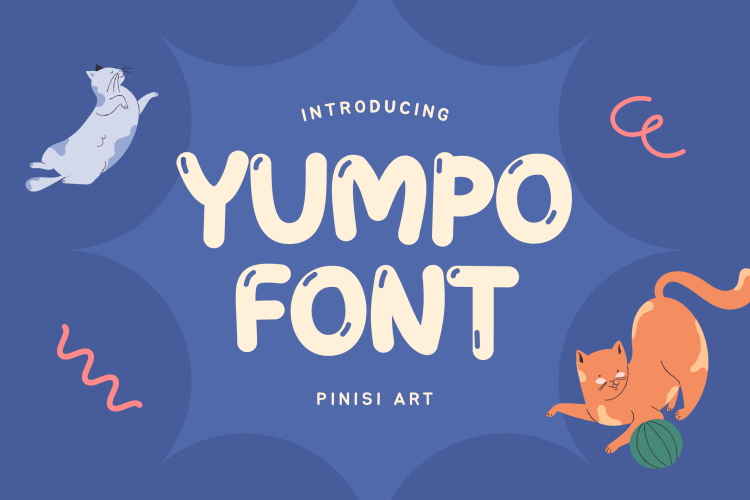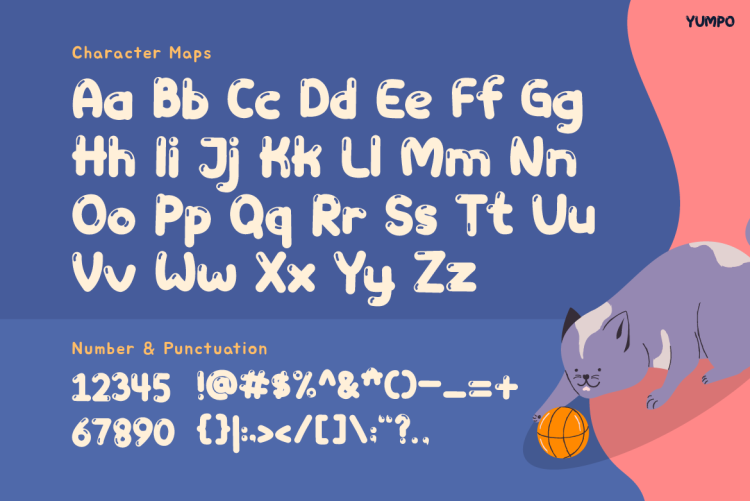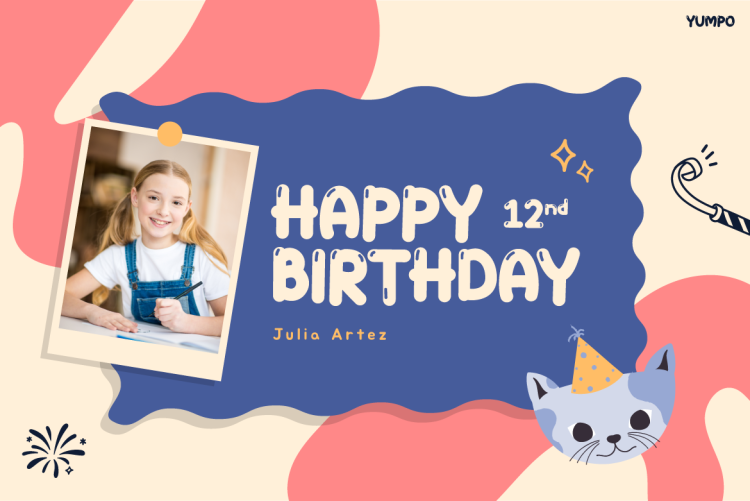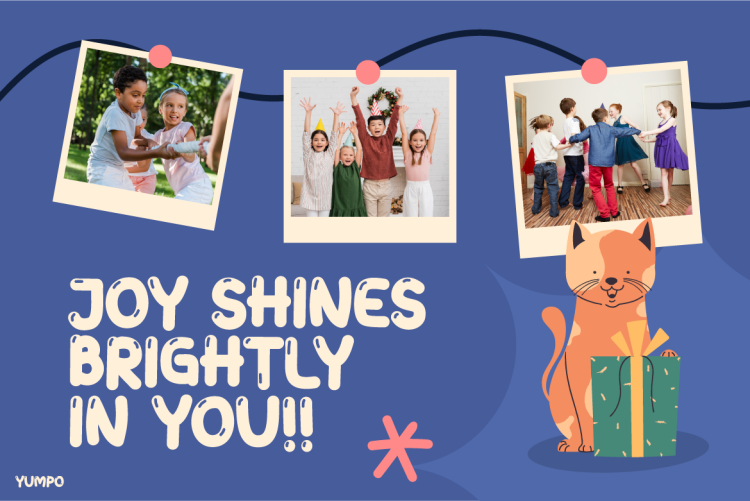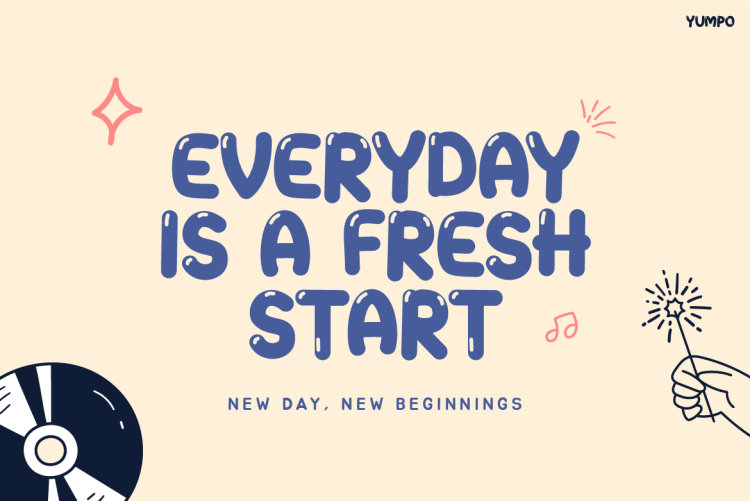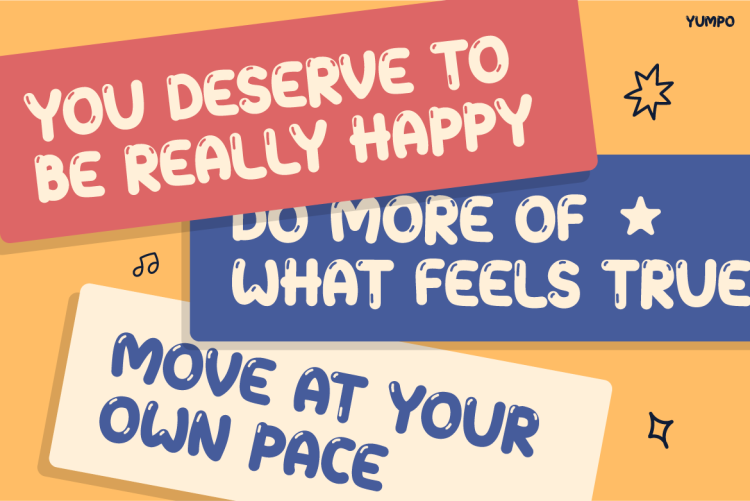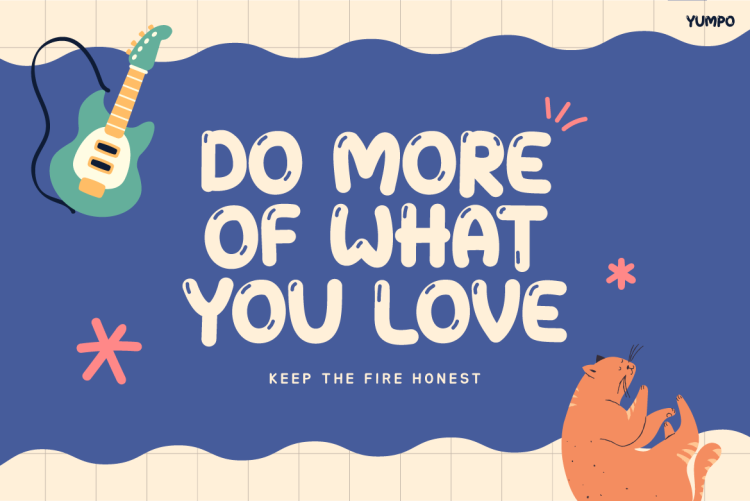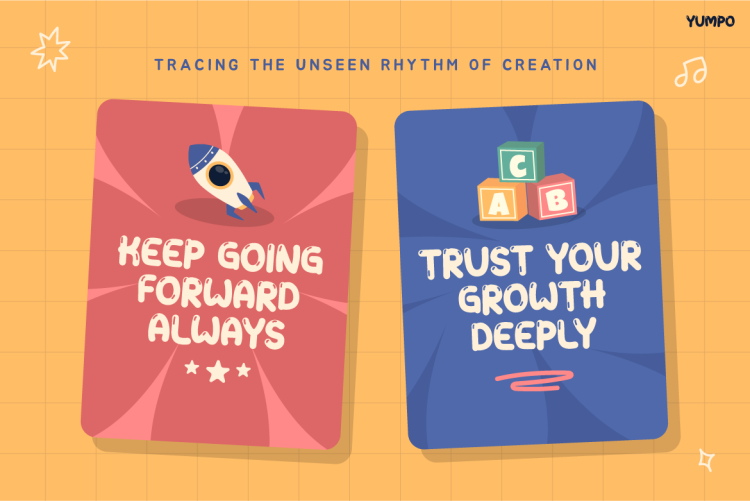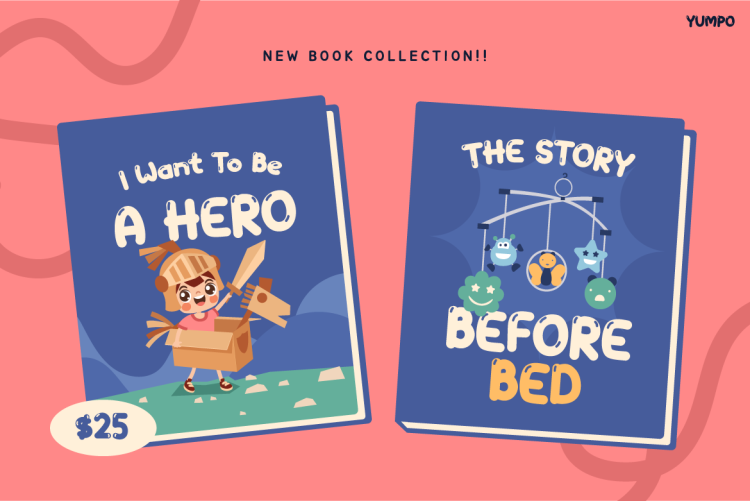
Kids Font Yumpo โ Playful Joy in Every Letter!
Kids Font Yumpo is a delightful display typeface that brings a spark of happiness and imagination to every design. From the very first glance, this font stands out with its rounded shapes, bouncy energy, and friendly charm. Each letter feels alive, dancing across the page with a sense of curiosity and fun. Moreover, its smooth lines and well-balanced curves create a comforting and creative look, making every message feel personal and full of joy. Because of its hand-drawn style and strong readability, itโs not only adorable but also highly practical for both digital and print use.
In addition, Kids Font Yumpo adds a touch of childlike wonder that makes your words pop with positivity. Itโs perfect for projects that need a joyful spirit โ from classroom posters to storybook covers. The fontโs cheerful personality ensures that every design feels warm, welcoming, and full of heart.
Perfect for Creators and Dreamers
Whether youโre a teacher, designer, or content creator, Kids Font Yumpo will help you express creativity with ease. Teachers can use it to design colorful educational materials that inspire learning while keeping things fun. Likewise, kidsโ brand designers can rely on its bright and happy tone to make packaging, logos, or invitations instantly more appealing.
Furthermore, Yumpo works beautifully for illustrators, YouTubers, and social media creators who want their text to feel friendly and relatable. Because it blends style and clarity, it keeps your message both playful and easy to read. You can use it for everything โ from birthday greetings and motivational quotes to childrenโs books and animated videos. Its versatility truly shines, adapting effortlessly to any project that needs energy and emotion.
Add a Smile to Every Design
Ultimately, Kids Font Yumpo is more than just a typeface โ itโs a celebration of creativity and happiness. It turns ordinary words into joyful experiences and helps your ideas connect with audiences of all ages. So, if youโre searching for a font that radiates positivity, spreads smiles, and adds an extra touch of charm, then Yumpo is exactly what you need. Bring your projects to life, one cheerful letter at a time, and let Kids Font Yumpo make your designs unforgettable!